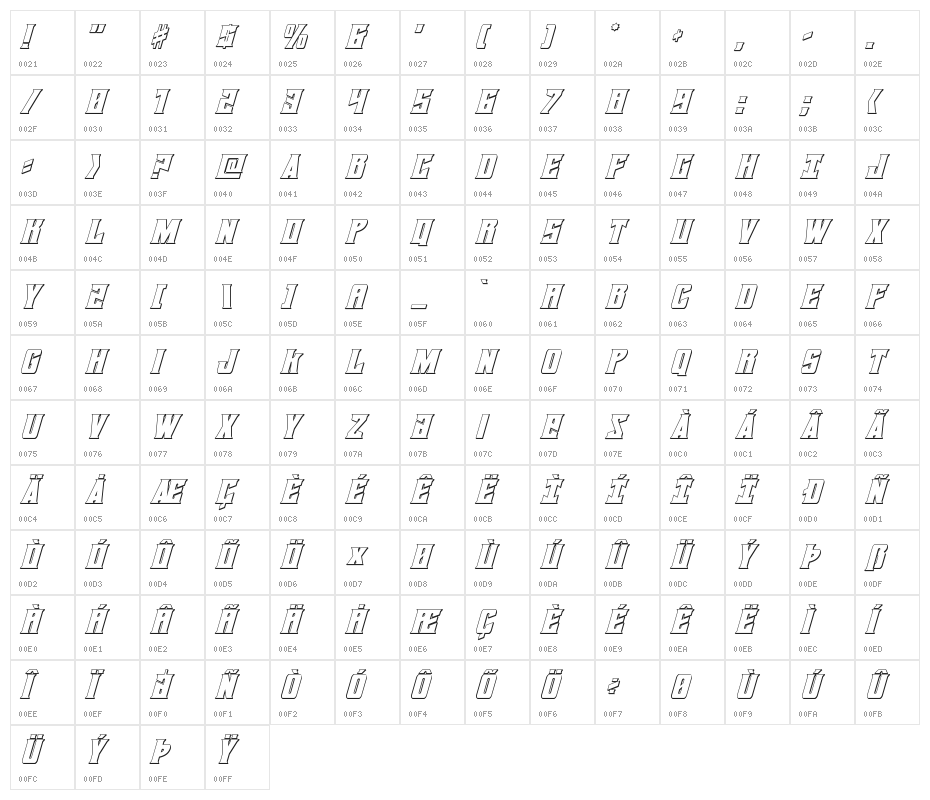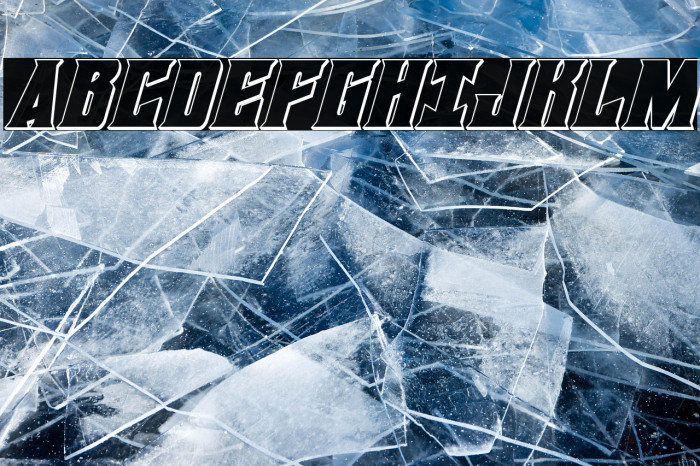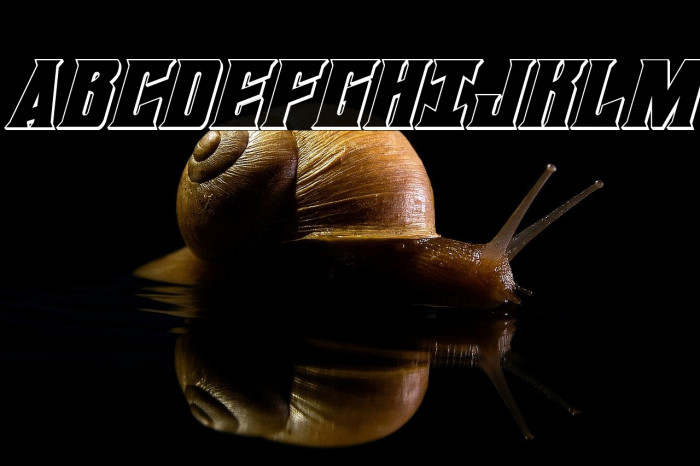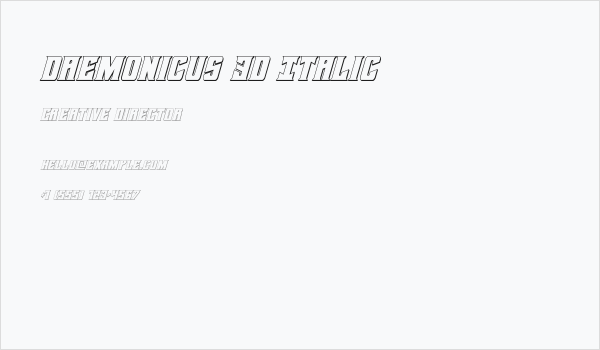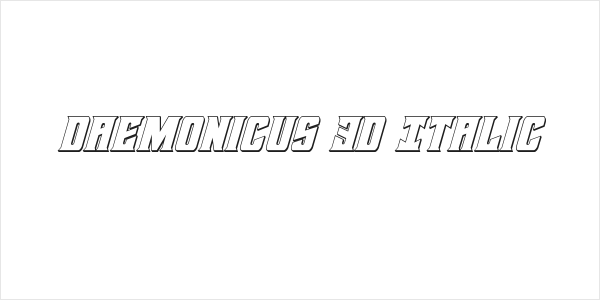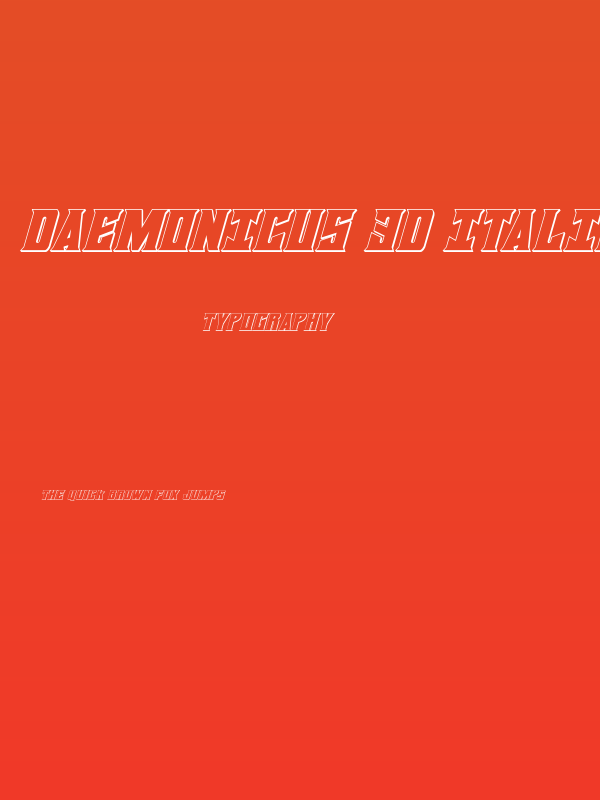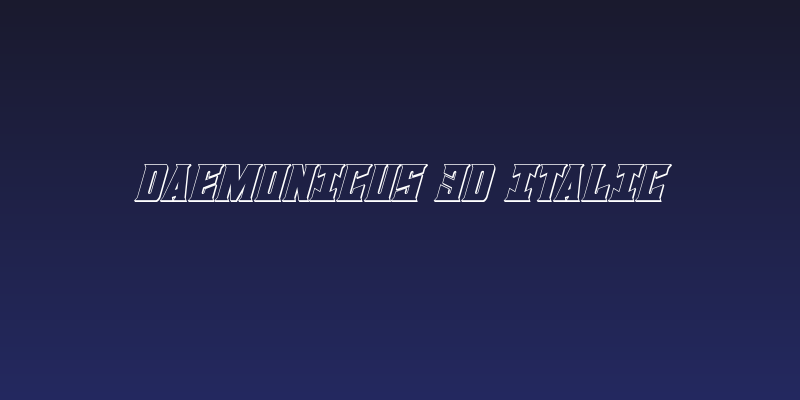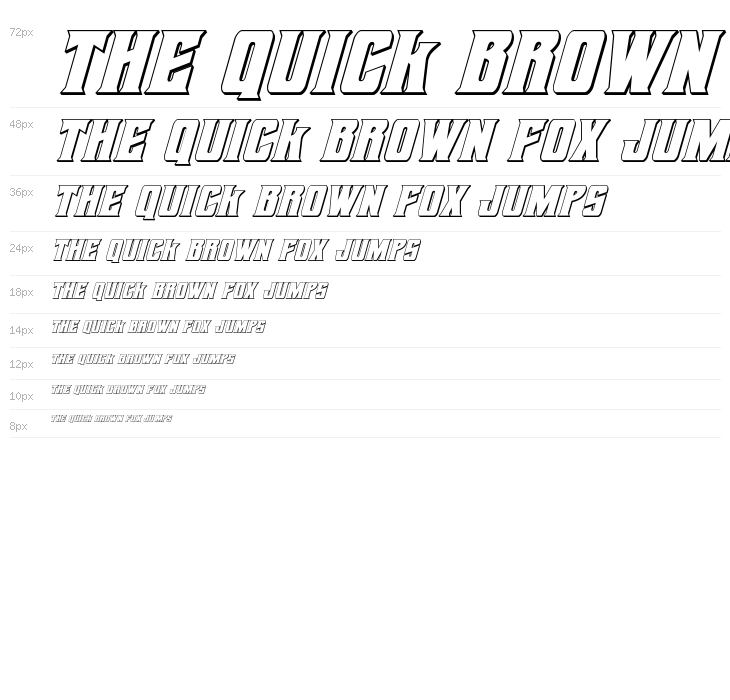
Daemonicus 3D Italic Font
Daemonicus 3D Italic Description
This font features a bold, three-dimensional design with an italic slant, giving it a dynamic and impactful appearance. The characters are outlined, creating a sense of depth and movement. The angular, geometric shapes of the letters add a modern and edgy feel, making it stand out in any design. The uppercase and lowercase letters maintain a consistent style, while the numbers and special characters complement the overall aesthetic. This font is ideal for projects that require a strong visual presence and a touch of modernity.
| Proposed Projects | Ideal for posters, logos, video game graphics, and any design needing a bold, modern touch. |